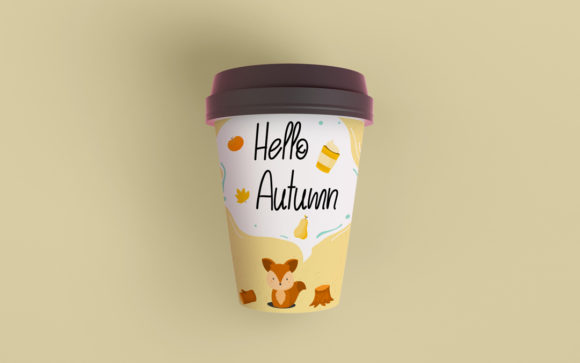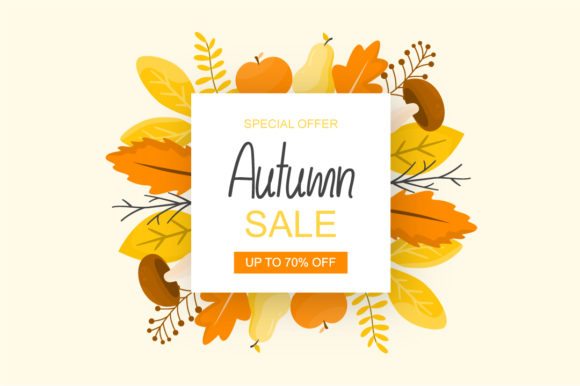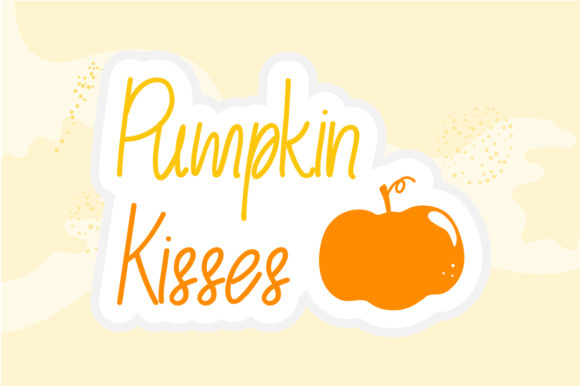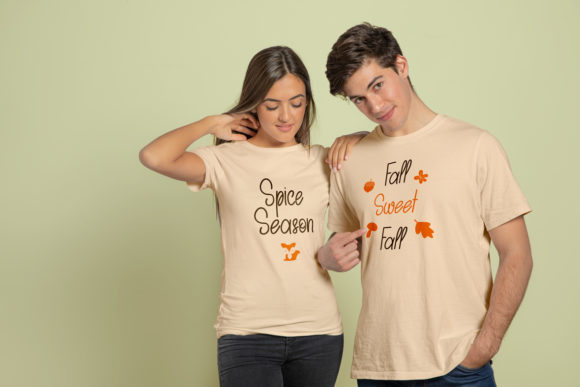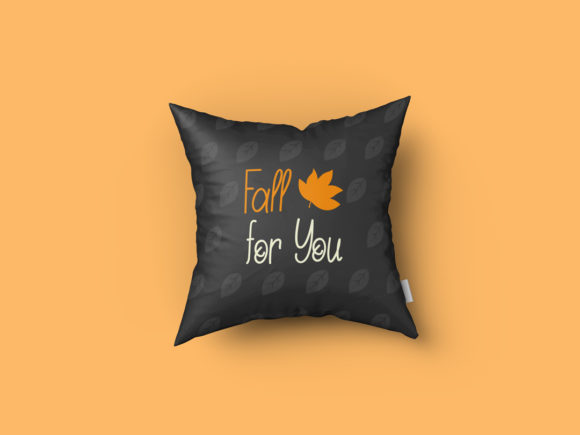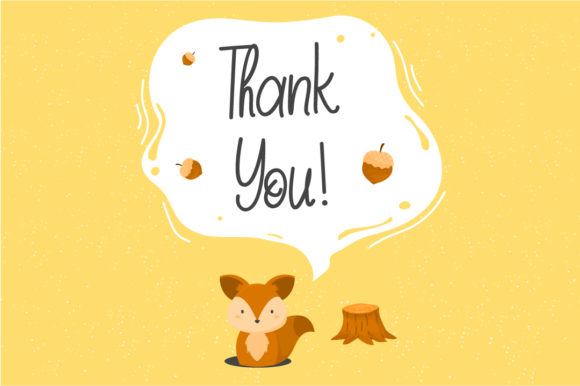
Get Cozy with Autumn’s Charm: Introducing Autumn Days Font
Have you ever found yourself lost in a sea of design inspiration, scrolling through Pinterest boards and Instagram feeds, searching for that perfect font to capture the essence of the season? I know I have. There’s something about the crisp air, the vibrant colors, and the cozy atmosphere of autumn that inspires creativity and warmth. It’s in these moments that I stumbled upon the Autumn Days Font, a sweet and friendly handwritten font that has become my go-to choice for all things fall.
The Autumn Days Font is more than just a pretty face – it’s a versatile tool that can be used to create gorgeous wedding invitations, beautiful stationery art, eye-catching social media posts, and so much more. Whether you’re a seasoned designer or a creative newbie, this font is sure to bring a touch of autumn’s charm to your work.
Autumn Days Font Key Features
- Font Family: Autumn Days is a unique, hand-drawn font with a natural, earthy feel.
- Size: This font family comes in multiple weights, ranging from Light to Bold, offering flexibility for various design needs.
- Unique Characteristics: Features hand-drawn, organic elements, and subtle texture, giving it a warm, natural feel.
Designer Review: Autumn Days Font
As a designer, I was excited to explore the Autumn Days Font, and overall, I found it to be a delightful addition to any project. ✨ The font’s intricate details and elegant script-like qualities make it perfect for adding a touch of warmth and coziness to any design. ✨ The font’s versatility also makes it suitable for a wide range of applications, from invitations and greeting cards to branding and marketing materials.
One of the standout features of Autumn Days Font is its extensive character set, which includes a wide range of symbols, punctuation, and special characters. ✨ This makes it an excellent choice for designers who need to include a lot of text in their projects.
- ⚠️ The font may not be suitable for large-scale or high-contrast text due to its intricate details, which can become difficult to read at certain sizes or resolutions.
- ⚠️ Some users may find the font’s script-like qualities to be too ornate or busy, which can detract from the overall design.
Overall, I would highly recommend the Autumn Days Font to designers who are looking for a unique and elegant font to add some personality to their projects. While it may have some limitations, its strengths far outweigh its weaknesses, making it a valuable addition to any designer’s toolkit.
Getting the Most Out of the Autumn Days Font
Use the Autumn Days font to add a touch of autumnal charm to your designs.
Pair the font with warm colors and autumnal imagery to create a cohesive look.
The Autumn Days font is perfect for:
Autumn-themed designs, such as invitations, posters, and greeting cards.
Seasonal marketing materials, such as flyers and brochures.
Personal projects, such as scrapbooking and digital art.
Great Vibes is a beautiful, handwritten font that is perfect for creating a warm and inviting atmosphere. It’s ideal for use in wedding invitations, quotes, and other creative projects. Great Vibes has a more elegant and refined feel compared to Autumn Days Font, which is more rustic and casual.
Carolyna Pro is a modern, elegant script font that is perfect for use in branding, advertising, and editorial design. It’s a great alternative to Autumn Days Font for designers who want a more sophisticated and polished look. Carolyna Pro has a more refined and precise feel compared to Autumn Days Font, which has a more organic and handwritten feel.
Alex Brush is a elegant, handwritten font that is perfect for use in creative projects, such as invitations, quotes, and watercolor illustrations. It’s a great alternative to Autumn Days Font for designers who want a more refined and sophisticated look. Alex Brush has a more delicate and intricate feel compared to Autumn Days Font, which is more bold and expressive.